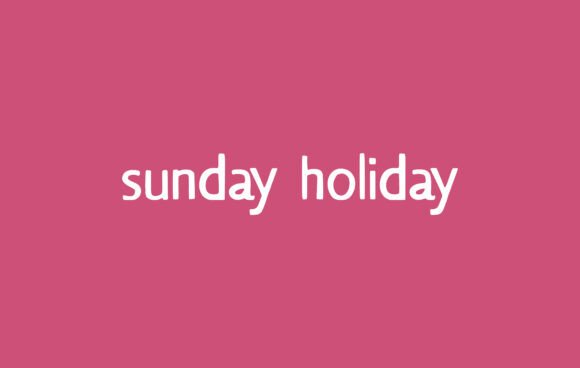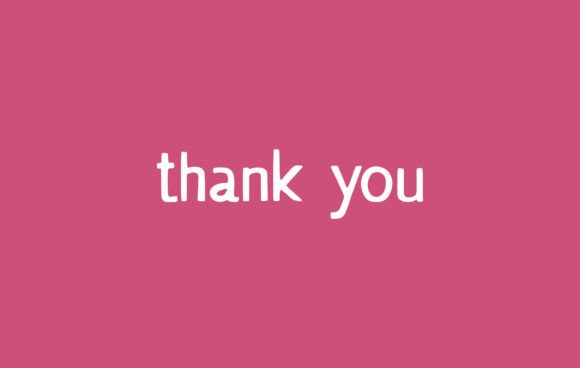
Blessed Bloom Font: Elevate Your Designs with a Romantic Touch
In the world of typography, a well-crafted font can make all the difference in bringing your creative ideas to life. If you’re a designer, crafter, or DIY enthusiast looking for a unique and elegant font to add a romantic touch to your projects, look no further than the Blessed Bloom font. This authentic handwritten font is expertly designed to capture the essence of whimsy and sophistication, making it a true favorite among designers and crafters alike.
The Charm of Blessed Bloom Font
Blessed Bloom font boasts a distinctive, hand-written style that exudes warmth and personality. Its romantic touch is perfect for a wide range of design applications, from wedding invitations and cards to magazine headlines and social media graphics. The font’s legibility and versatility make it an excellent choice for both title and body text, allowing you to experiment with different layouts and styles.
One of the most significant advantages of the Blessed Bloom font is its incredible flexibility. Whether you’re working on a commercial project or a personal DIY endeavor, this font can help you create stunning designs that capture your audience’s attention. Here are just a few ideas to get you started:
- Wedding Invitations and Stationery: Add a touch of romance and whimsy to your wedding invitations, save-the-date cards, and other stationery with the Blessed Bloom font.
- Magazine Headlines and Articles: Use the Blessed Bloom font to create eye-catching headlines and engaging article text for your magazine or online publication.
- Social Media Graphics: Elevate your social media presence with beautifully designed graphics featuring the Blessed Bloom font.
- Branding and Packaging: Incorporate the Blessed Bloom font into your brand identity and packaging design to create a cohesive and memorable visual experience.
Why Designers and Crafters Love Blessed Bloom Font
So, what makes the Blessed Bloom font a favorite among designers and crafters? Here are just a few reasons:
- Unique and Authentic: The Blessed Bloom font features a distinctive, hand-written style that sets it apart from more generic fonts.
- Legible and Versatile: This font is designed to be easy to read and versatile enough to work well in a variety of design applications.
- Romantic Touch: The Blessed Bloom font’s romantic touch adds a touch of whimsy and sophistication to any design.
Tips for Using Blessed Bloom Font
To get the most out of the Blessed Bloom font, here are a few tips to keep in mind:
- Experiment with Different Sizes and Colors: Don’t be afraid to try out different font sizes and colors to find the perfect combination for your design.
- Pair with Other Fonts: Consider pairing the Blessed Bloom font with other complementary fonts to create visual interest and hierarchy.
- Use for Both Title and Body Text: Take advantage of the font’s legibility and use it for both title and body text to create a cohesive look.
In conclusion, the Blessed Bloom font is a versatile and elegant addition to any designer’s or crafter’s toolkit. With its unique, hand-written style and romantic touch, this font has the potential to elevate your creative ideas to new heights. Whether you’re working on a wedding invitation, magazine headline, or social media graphic, the Blessed Bloom font is sure to impress. So why wait? Download the Blessed Bloom font today and start creating stunning designs that capture your audience’s attention!